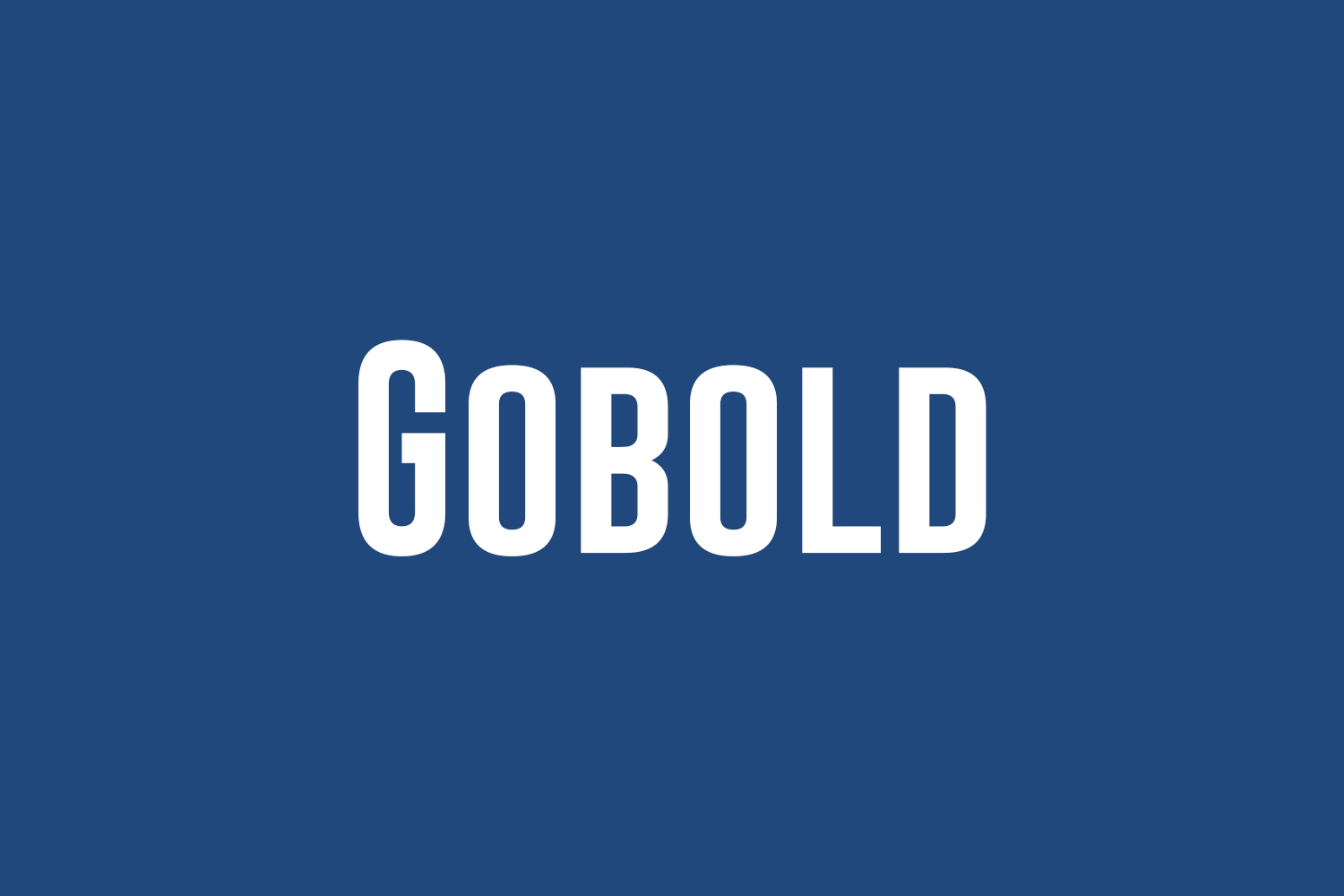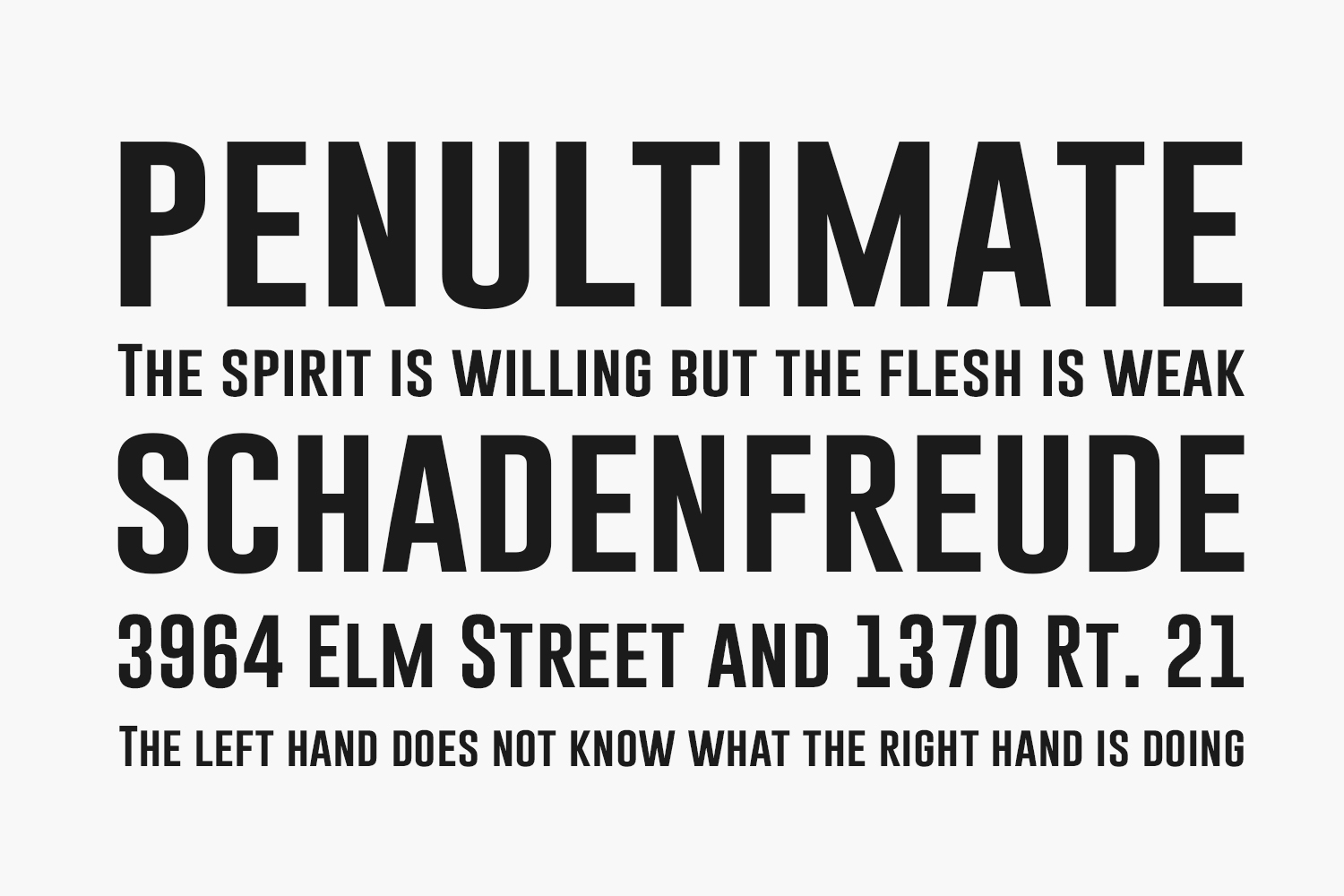
Gobold is a versatile and powerful sans-serif typeface designed by Situjuh Nazara from 7NTypes to bring strong visual presence to your design projects. With its clean geometric structure, high legibility, and bold character, this free decorative font works perfectly for crafting striking logos, posters, branding kits, editorial headers, and more. Available in OTF format with support for Latin characters — ideal for designers seeking a flexible, modern sans-serif font that commands attention while maintaining clarity.
Why Choose Gobold?
- Bold & Minimalist Style: Combines strength with simplicity for a professional, impactful appearance.
- Ideal for Logos & Headers: Perfect for large text applications like billboards, magazine covers, or brand identities needing a confident tone.
Where to Use Gobold?
Gobold shines across a variety of creative applications:
- Logos & Branding: Adds confidence to brand identities for tech startups, fashion labels, or lifestyle blogs needing a modern tone.
- Poster & Billboard Design: Designed for maximum visibility — makes headlines pop in outdoor advertising.
- Digital Interfaces: Ideal for web headers, app typography, or landing page buttons where clear communication is essential.
- Editorial Headers: Stands out in blog titles, magazine covers, and digital banners with a crisp, stylish look.
- Social Media Graphics: Enhances Instagram Stories, TikTok overlays, and YouTube thumbnails with a bold sans-serif presence.
Design Tips with Gobold
- Glyphs: Includes over 28 variants: Light, Regular, Bold, Extra, Thin, Hollow, High, Lowplus, Uplow, Extra2, CUTS, and Italic versions.
- Glyph Count: Each variant includes ~231 glyphs including uppercase (A-Z), lowercase (a-z), numerals, punctuation, and accents.